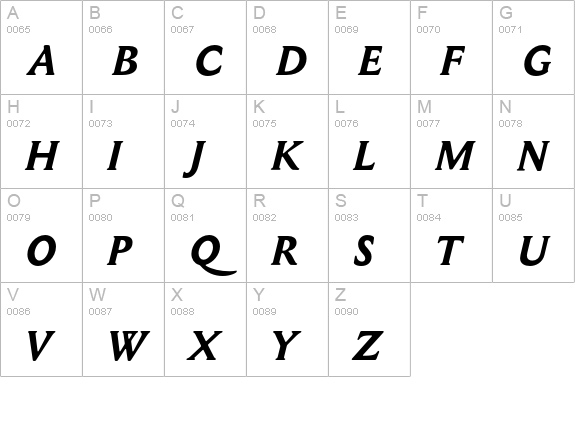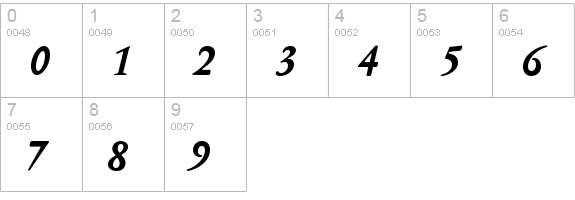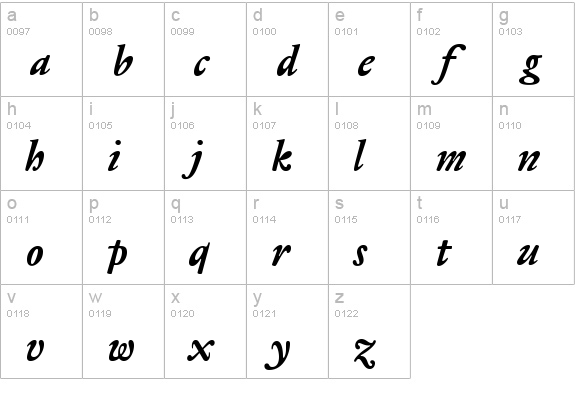
Mediaeval-BoldItalic Font Details
Mediaeval-BoldItalic font is a striking and elegant typeface that exudes a sense of history and sophistication. Its bold and italic design adds a touch of drama to any text, making it perfect for titles, headings, and other display purposes. This font is inspired by medieval calligraphy, combining traditional elements with a modern twist. What sets Mediaeval-BoldItalic font apart is its unique blend of classic charm and contemporary flair. The intricate details and graceful curves of the letterforms make it a standout choice for designers looking to add a touch of old-world elegance to their projects. Best of all, Mediaeval-BoldItalic font is available for free download at FontsMarket.com. This means you can easily access this beautiful typeface and use it in your designs without any cost. Whether you're working on a personal project or a professional assignment, Mediaeval-BoldItalic font will help you create stunning visuals that stand out from the crowd.